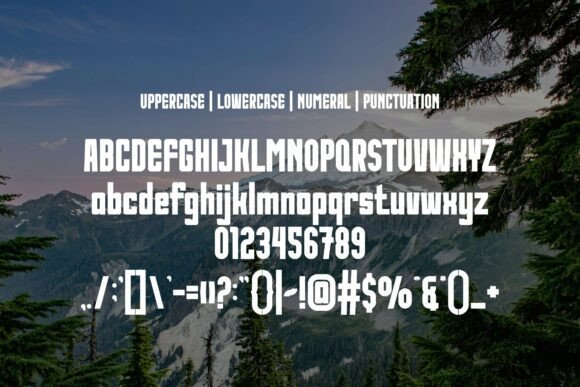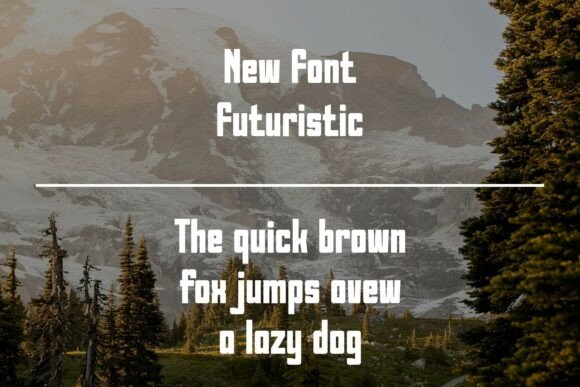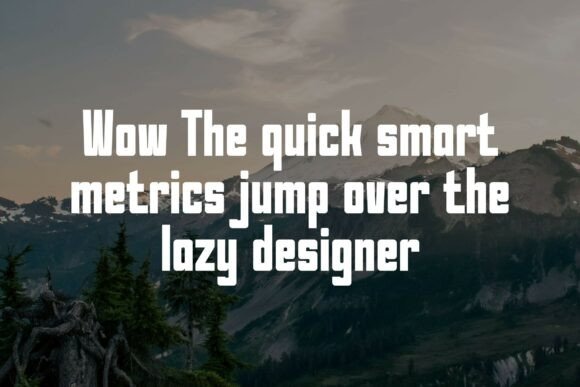
The Ultimate Guide to Akuma Font: Unleash Your Creative Potential
I’ll never forget the time I was working on a project for a client who wanted a bold, eye-catching font to make their brand stand out. I scoured the internet, trying out font after font, but nothing seemed quite right. That was until I stumbled upon the Akuma font. **This cool and bold sans display font** has been a game-changer for my design work, and I’m excited to share its awesomeness with you!
Akuma Font Review: The Good and the Great
- ✨ Bold and eye-catching: Akuma font is perfect for making a statement. Its bold design ensures your text won’t go unnoticed.
- ✅ Highly versatile: Whether you’re working on a logo, a poster, or a social media graphic, Akuma font adapts seamlessly to different contexts.
- 💥 Emotional impact: This font has a way of evoking strong emotions. It’s perfect for projects that require a sense of drama or urgency.
The Not-So-Perfect: A Few Quirks
While Akuma font is amazing, it’s not without its limitations. Here are a few things to keep in mind:
- 🤔 Legibility at small sizes: Akuma font can be a bit tricky to read at very small sizes. Make sure to test it out before committing to a specific size.
- ⚠️ Limited OpenType features: Compared to some other fonts, Akuma has relatively few OpenType features. However, what it does offer is still pretty cool!
Akuma font was designed with one goal in mind: to create a bold and eye-catching sans display font. The designer wanted to craft a font that would evoke strong emotions and make a statement. The result is a font that’s both cool and powerful.
- Q: What is Akuma font?
- A: Akuma font is a cool and bold sans display font perfect for making a statement.